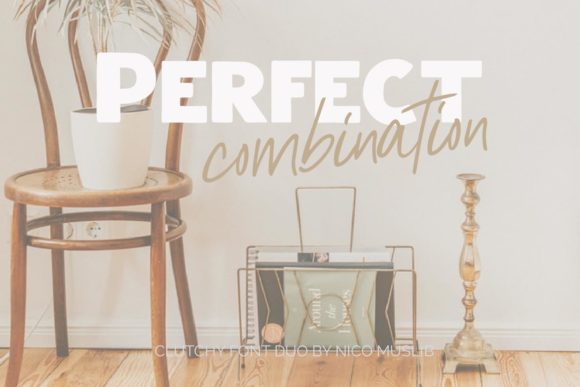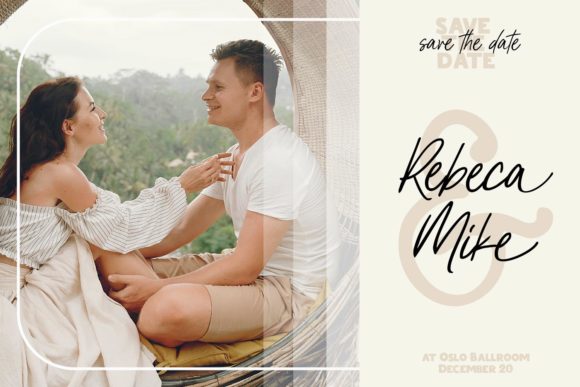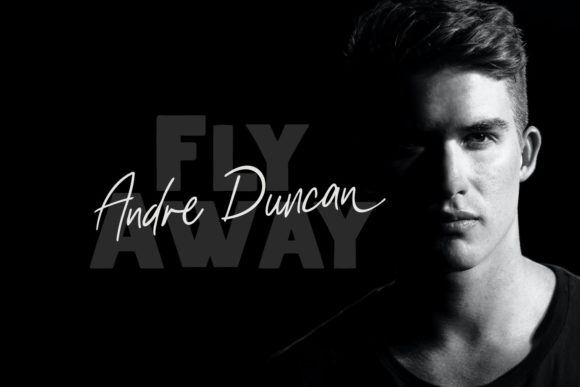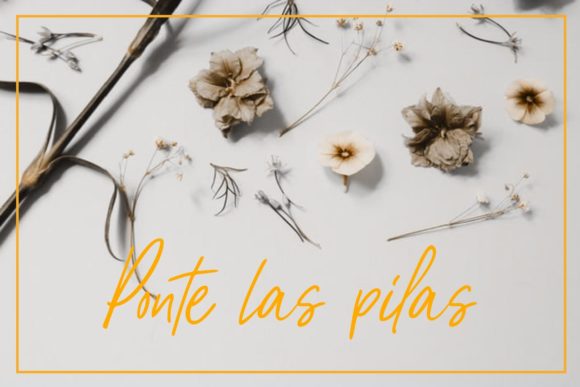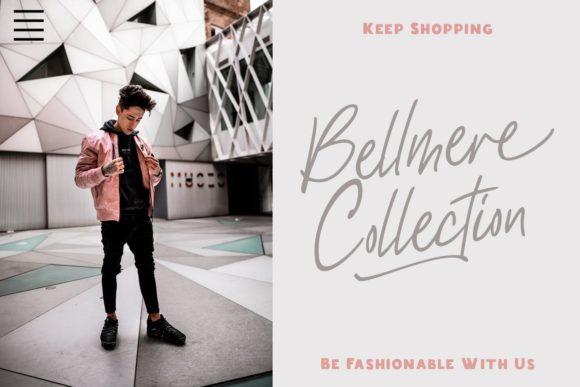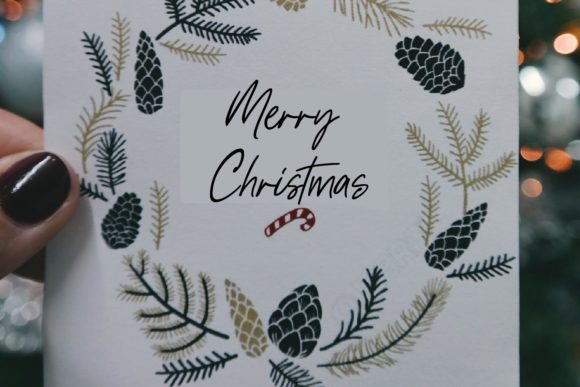
Introduction to Clutchy Font
Clutchy is a beautiful duo font (Script & Sans Serif).
This font duo is perfect for any modern project including branding design, logos, invitations, wedding decor, website design, instagram, business cards, and more .
Key Features of Clutchy Font